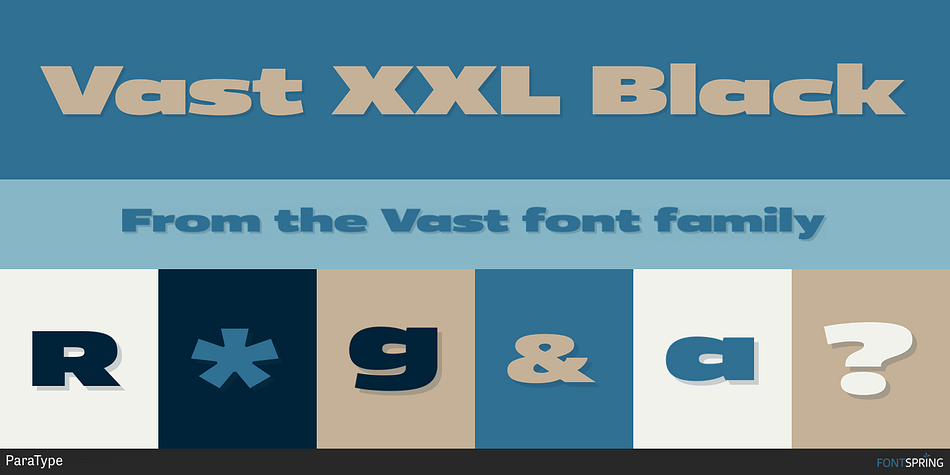
Vast XXL Black
Designed by Alexander Lubovenko and Manvel Shmavonyan, Vast is a sans serif font family. This typeface has fifty-nine styles and was published by ParaType.
Vast is a variable sans serif with a range of styles from thin to black and from normal to extra wide. This versatile font family of both of a serious and friendly nature can be used for various purposes, such as text, logos, headings, and branding. Vast was designed by Manvel Shmavonyan with the assistance of Alexander Lubovenko and released by Paratype in 2021.